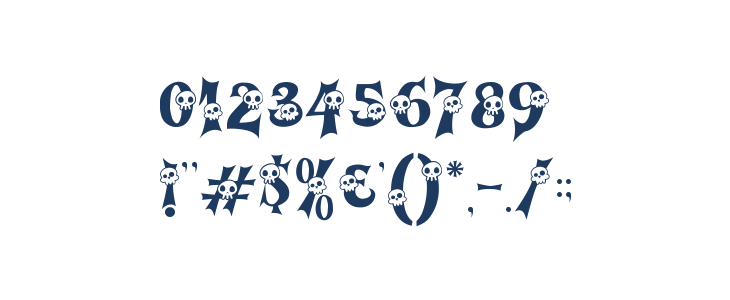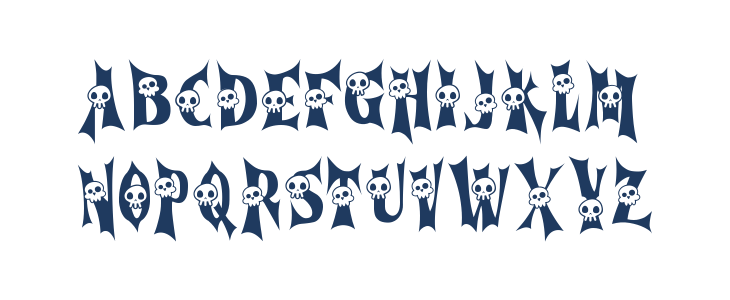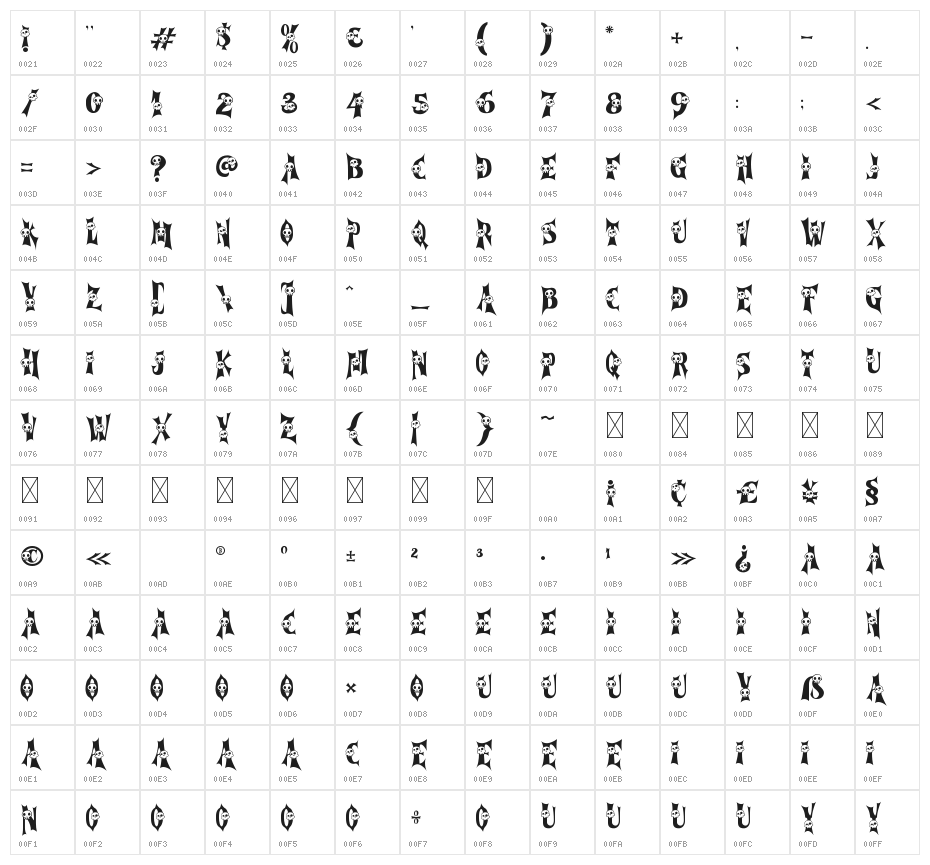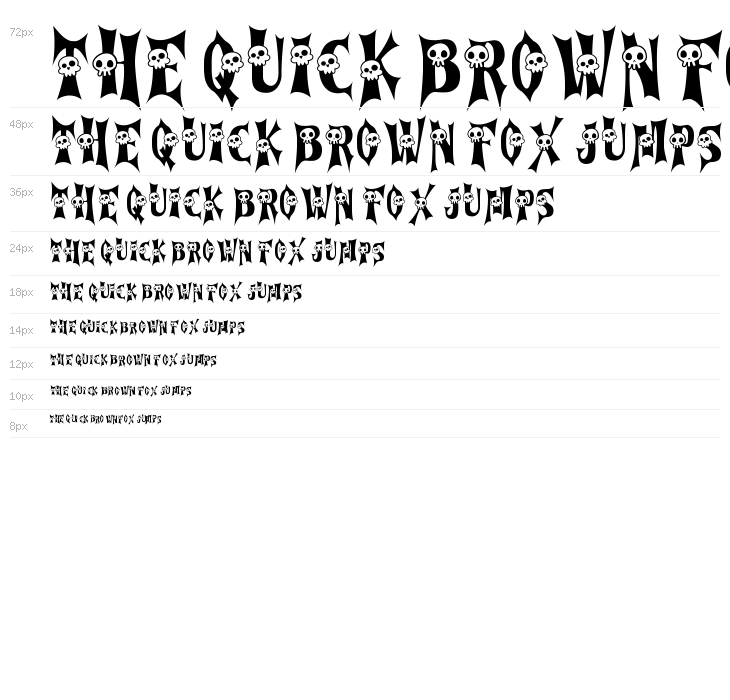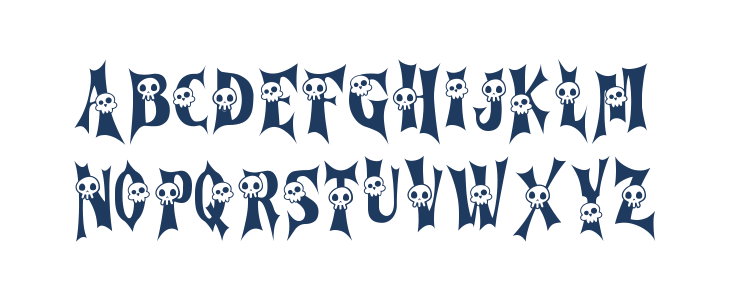
Cursed Gothic Skull Font
Cursed Gothic Skull Description
A highly decorative, gothic-inspired font featuring sharp, spiked letterforms with integrated skull motifs on each character, creating a dramatic and eerie visual effect.
| Overall Style | Decorative, Gothic, Horror |
| Use Case | Headlines, Logos, Posters, Themed Graphics |
| Proposed Projects | Halloween posters, horror movie titles, haunted house branding, themed party invitations, heavy metal band logos. |